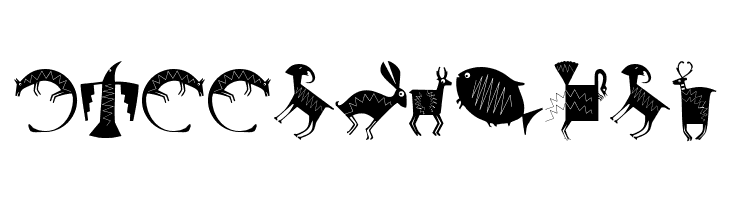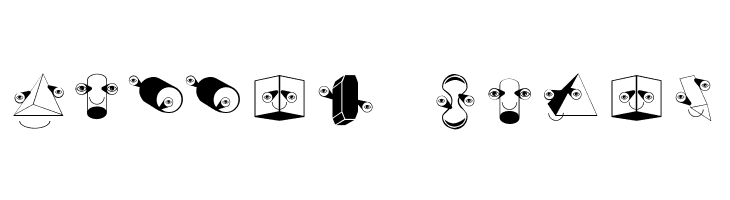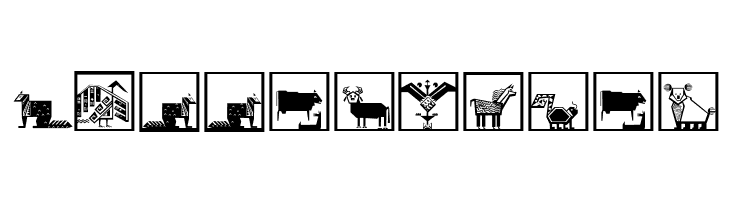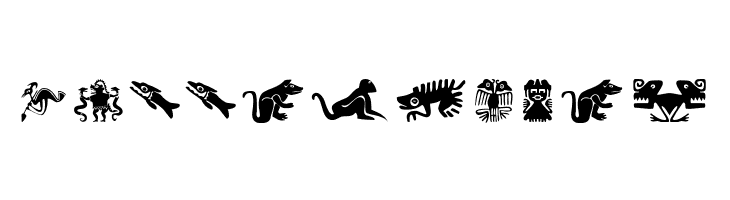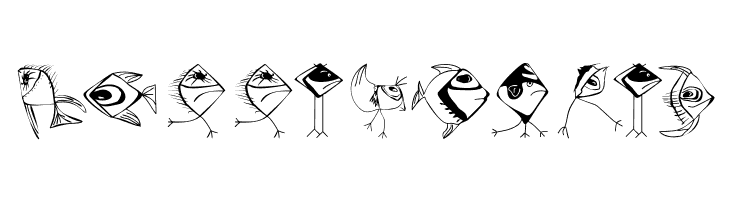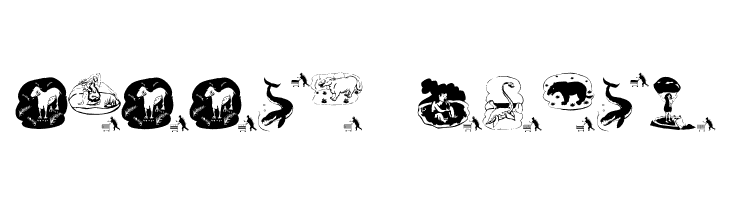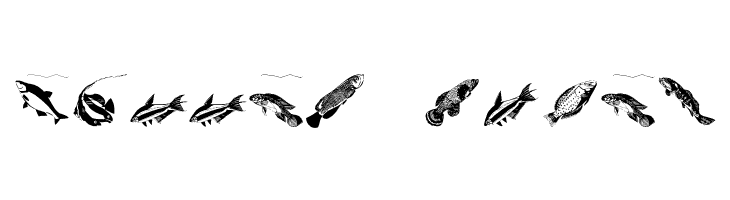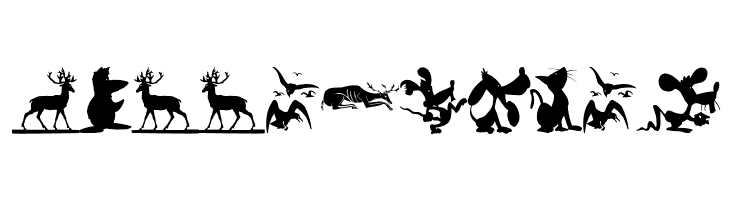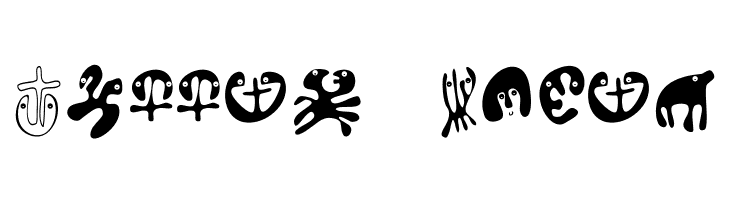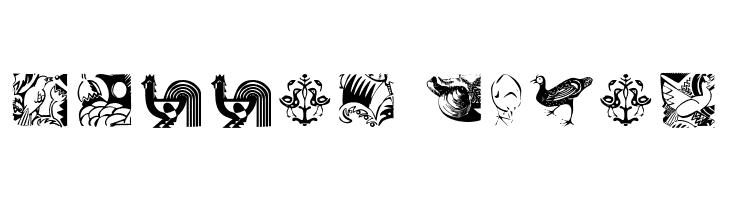
• NewCaveDrawings
An artistic font inspired by ancient cave drawings, featuring animal-like characters.
• AustranimalsOne
A whimsical font featuring illustrated Australian animals as characters.
• PhantasticBeings
The image features abstract, character-like designs, not a functional font.
• PatternaliaMK
A decorative and whimsical font with characters resembling unique animals.
• WoodcutOrnaments
• MesoFaunaTwo
A decorative set of glyphs inspired by Mesoamerican fauna, featuring intricate and bold designs.
• BirdsNFishes
A whimsical, decorative font inspired by birds and fish, featuring intricate and playful designs.
• Prehistorish
A playful, prehistoric-themed illustrative font with cartoonish characters.
• FischersFritzen
Font made of fish and diver illustrations for each character.
• Krabbeltiere
A decorative dingbat font featuring insect and bug silhouettes.
• AnimalShadowsDrei
A playful decorative font made of animal silhouettes and tracks.
• Mirobattz
A decorative and abstract font with playful, artistic symbols.
• Animalia
Intricate animal-themed decorative glyphs with a woodcut style.
• BookBeings
A whimsical, book-inspired display font with illustrated, characterful glyphs.
• MKarlasBats
A whimsical, hand-drawn decorative font with playful and artistic characters.
• EasterIslandsToday
A decorative and abstract font inspired by ancient tribal art, featuring bold and whimsical characters.
• LetsDance
Animal and abstract silhouette dingbat font with playful, bold shapes.
• MechanicsActors
A quirky, illustrative display font with characters depicted as abstract stick-figure birds.
• Belwe Vignetten
A collection of decorative symbols and emblems with intricate details.
• SpaceBeings
Abstract shapes resembling faces, not a valid font.
• GernKleinThree
A quirky, illustrated display font composed of unique cartoon drawings.
• SpaceCommedians